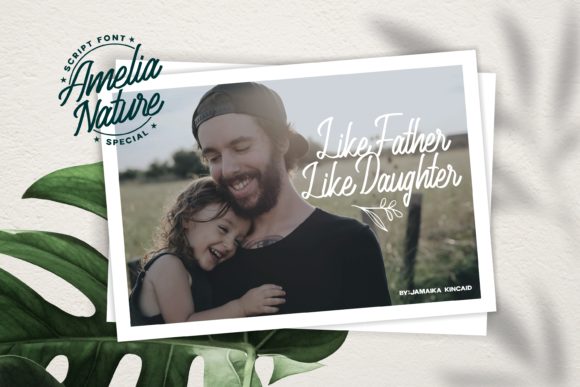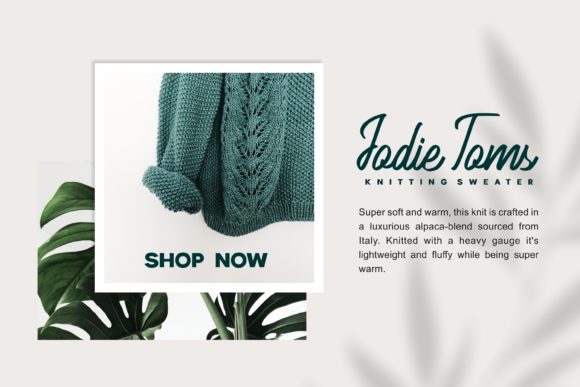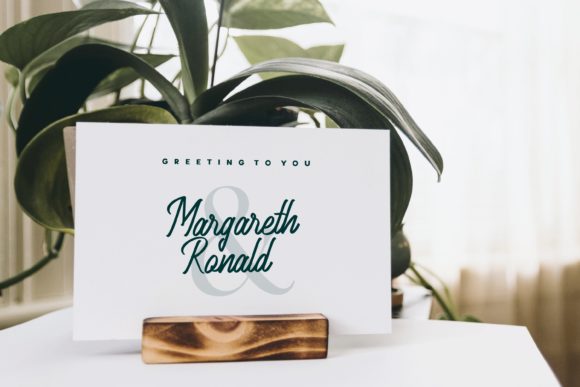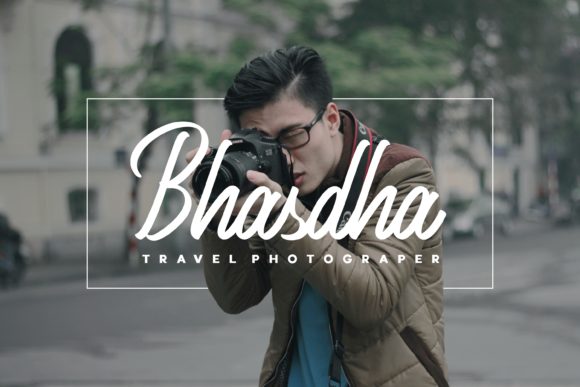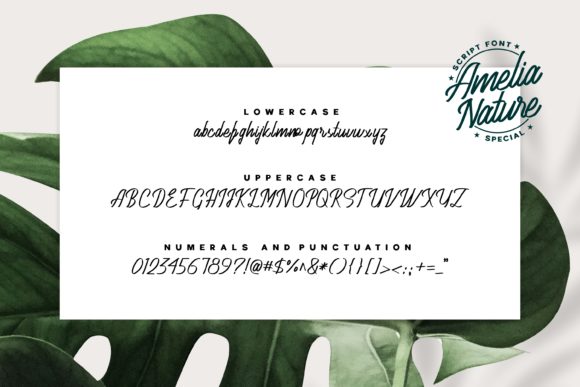
The Designer’s Delight: Amelia Nature Font
Have you ever been in the middle of a design project, and suddenly, you’re stuck on finding the perfect font? I recall a recent experience where I was working on a branding project for an eco-friendly product, and I just couldn’t find a script font that conveyed the right tone. That was until I stumbled upon the stunning Amelia Nature font. In this article, I’ll share my journey with this beautiful font, its features, and how you can make the most of it in your designs.
A Personal Encounter with Amelia Nature
I was working on a logo design for a new outdoor gear company, and I needed a font that was both elegant and earthy. After hours of searching, I finally came across Amelia Nature, and it was love at first sight! The flowing script, the natural feel, and the versatility of this font won me over. I knew right then and there that it was the perfect fit for my project.
An Honest Review of Amelia Nature
So, what makes Amelia Nature a standout font? Here are a few things I love about it:
- ✨ Elegant and flowing script that adds a touch of sophistication to any design
- ✅ Highly versatile and works well for various design projects, including logos, branding, packaging, posters, and more
- 🌿 A natural, earthy feel that evokes a sense of connection to the outdoors
- 💻 Excellent for digital use, with clear and readable text even at smaller sizes
While Amelia Nature is an excellent font, it’s not without its quirks. Here are a few things to keep in mind:
- 🤔 Some users may find the font a bit too ornate for certain projects, such as body text or very formal designs
- ⚠️ As with any script font, it may not be the best choice for very small text sizes or low-resolution images
The Story Behind Amelia Nature
While the true story behind Amelia Nature remains a mystery, it’s easy to imagine that it was inspired by the natural world. Perhaps the designer, fueled by a passion for botany and typography, set out to create a font that would evoke the beauty of the outdoors. Whatever the inspiration, Amelia Nature is undoubtedly a masterpiece.
| Font Name | Amelia Nature Font |
| Author | Fype Co. |
| What type of projects is Amelia Nature best suited for? | Amelia Nature is highly versatile and works well for logos, branding, packaging, posters, invitations, social media graphics, and more. |
| Is Amelia Nature suitable for body text? | While Amelia Nature is a beautiful font, it’s best used for headlines or short paragraphs. For body text, a more traditional font may be more readable. |
| Does Amelia Nature support OpenType features? | Yes, Amelia Nature supports OpenType features, including ligatures, stylistic alternates, and glyphs. |